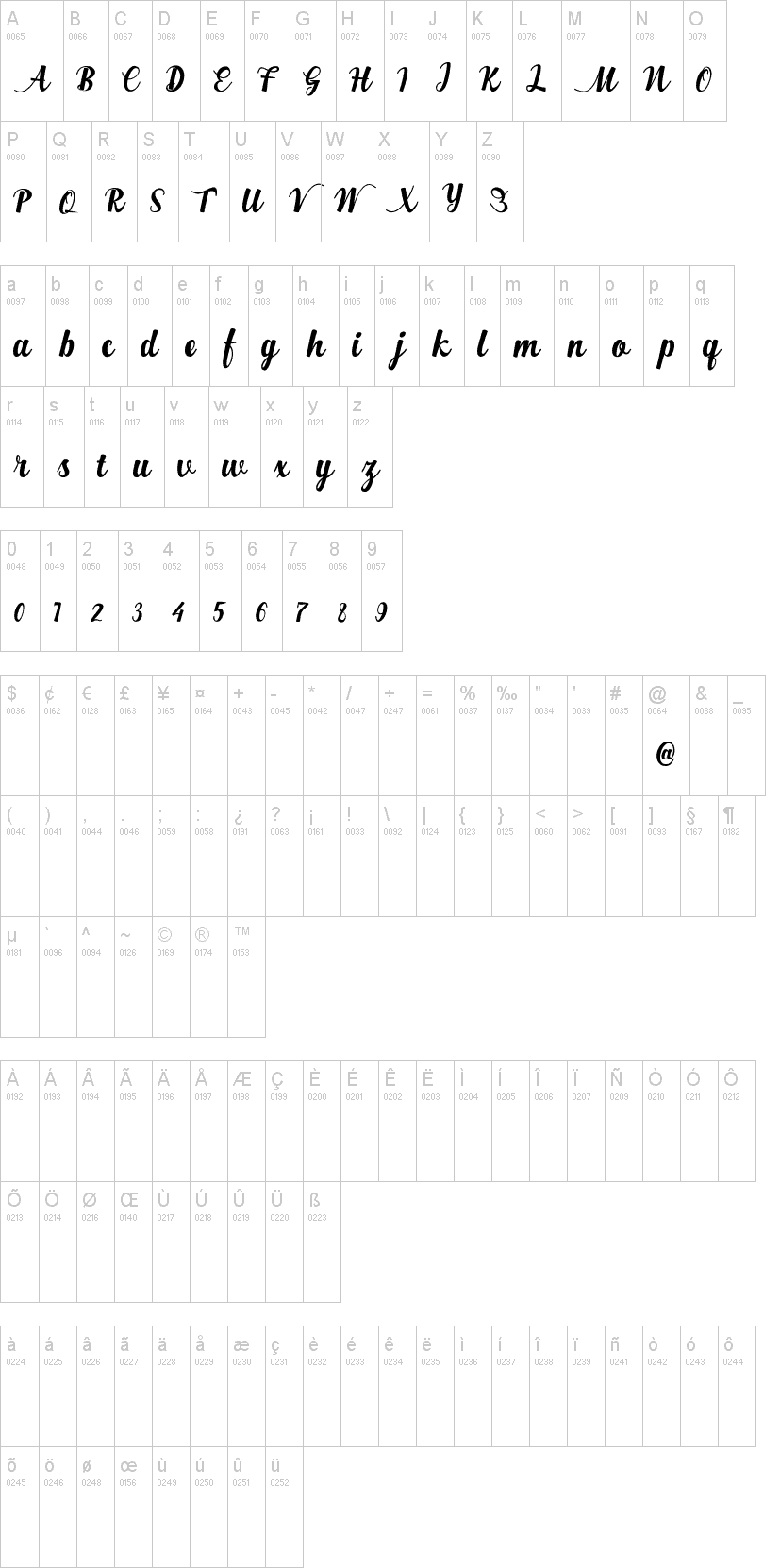
The new type of script named Alexander is friendly and has a character of its own. It can be employed for branding purposes and can be used in the form of logo, badge, insignia, packaging, headline/poster, t-shirt or any clothing apparel, greeting cards, and wedding invites. The flowing characters list is perfect for creating an appealing, the Montanam to alter of a several characters to complete your project.